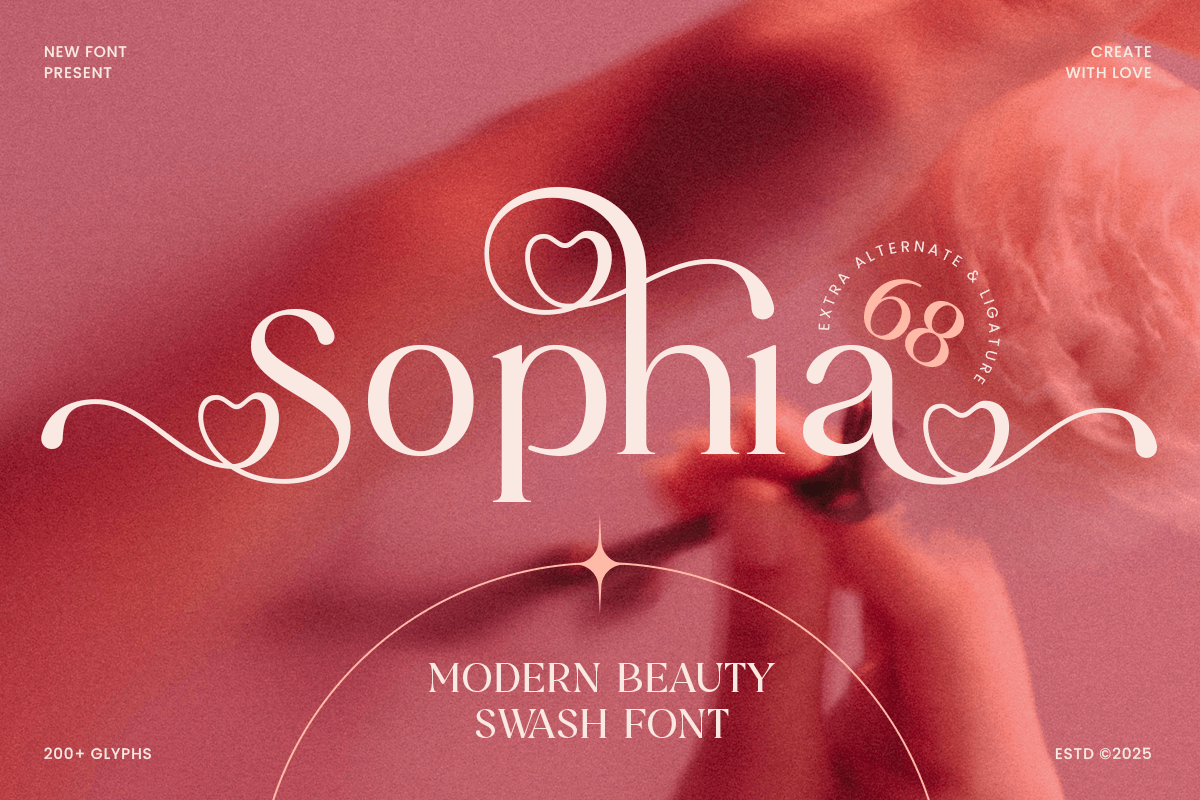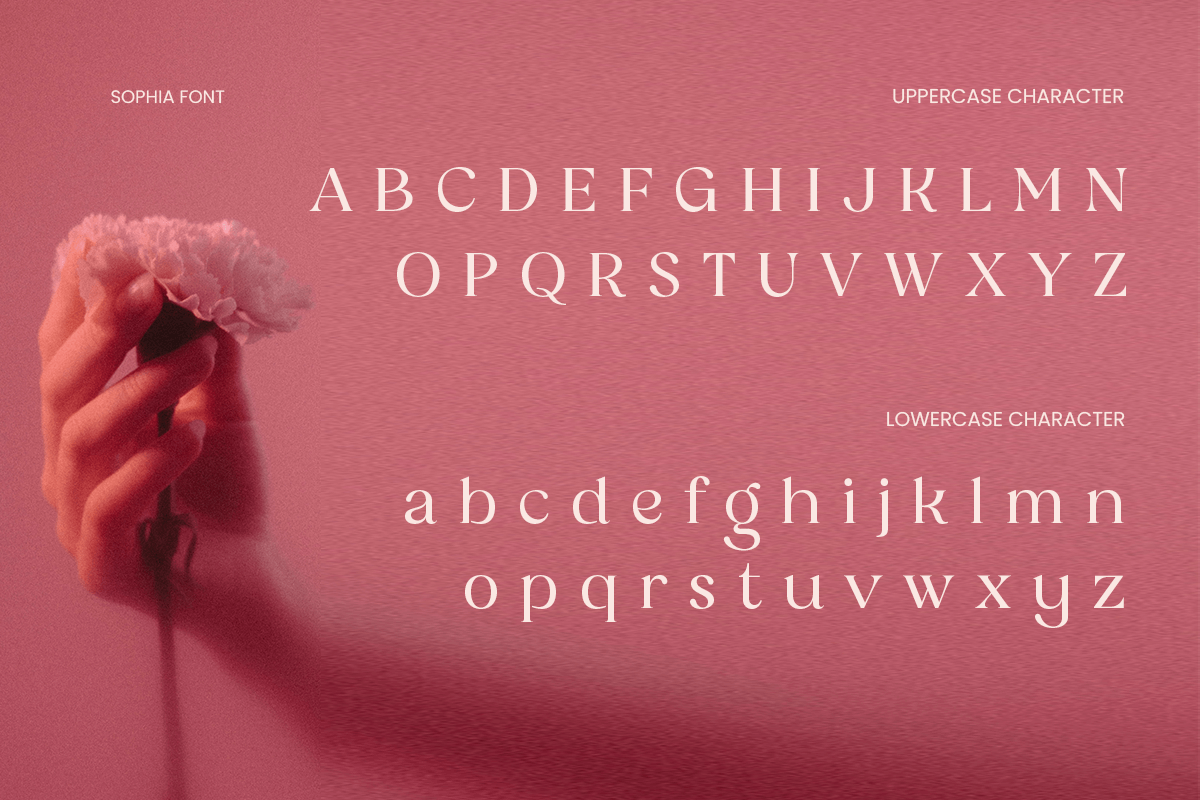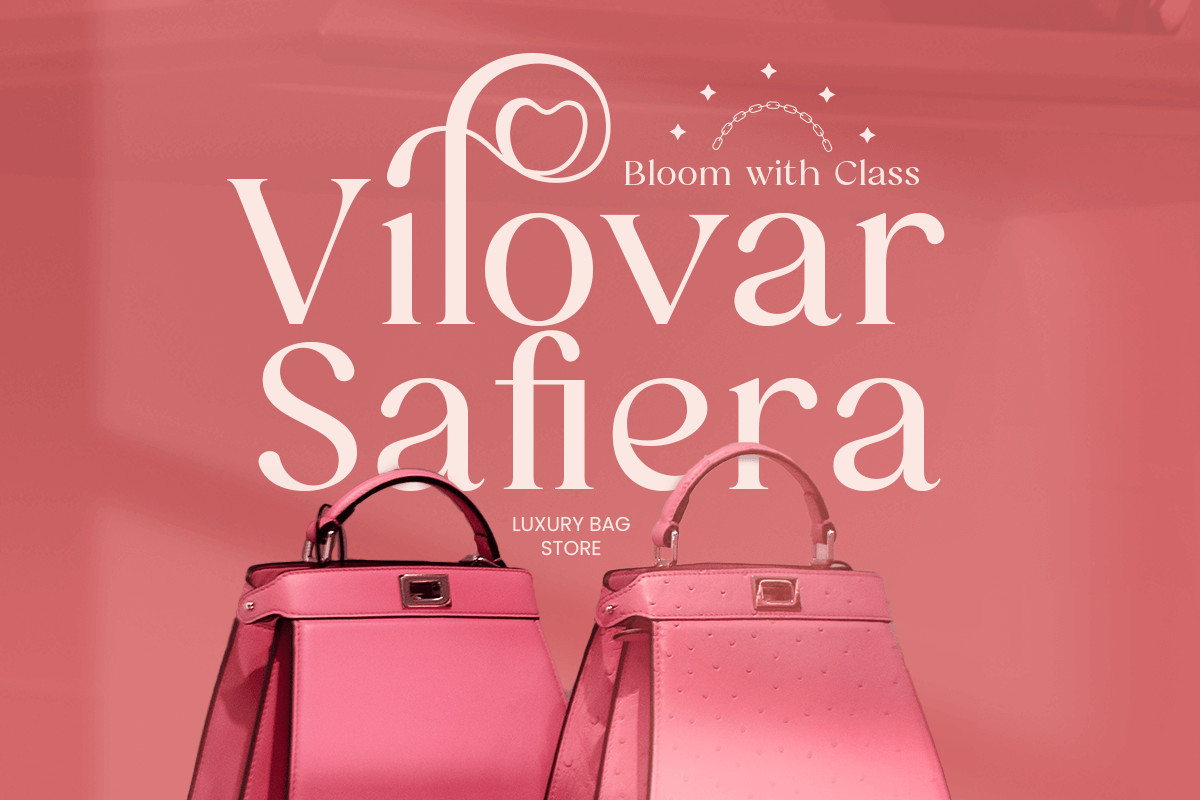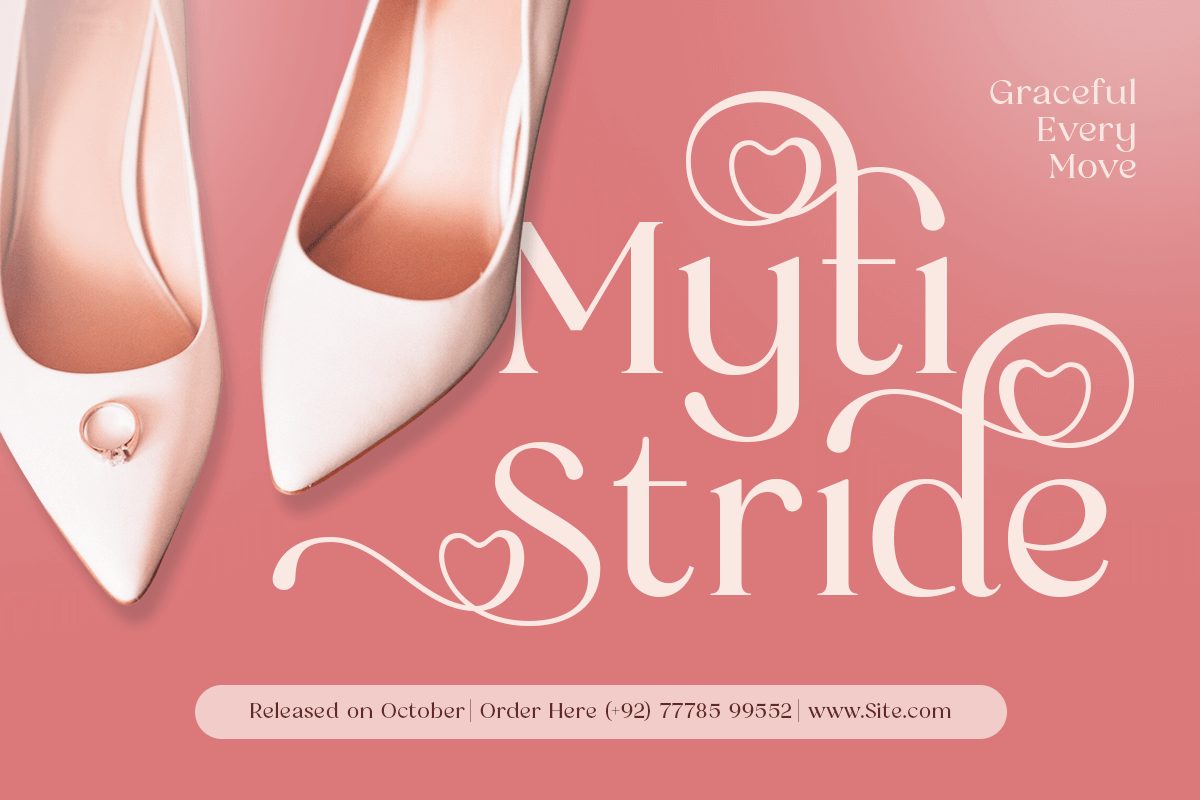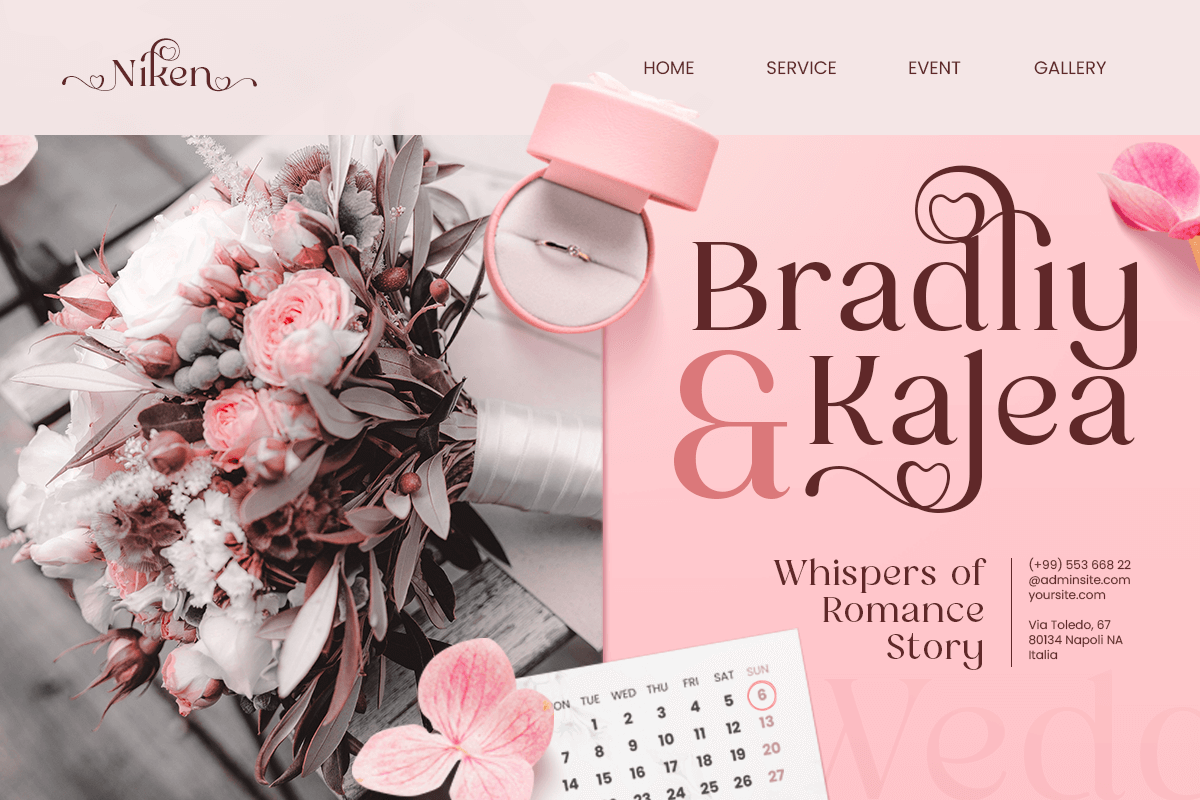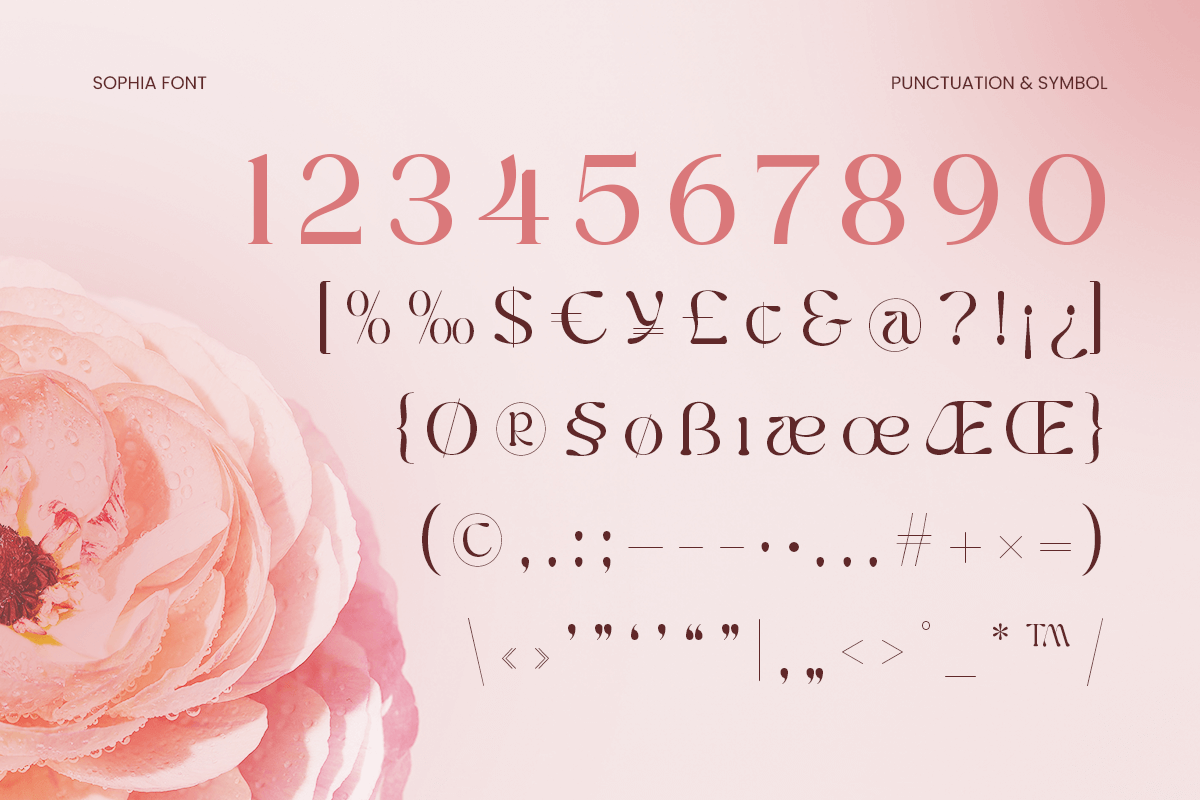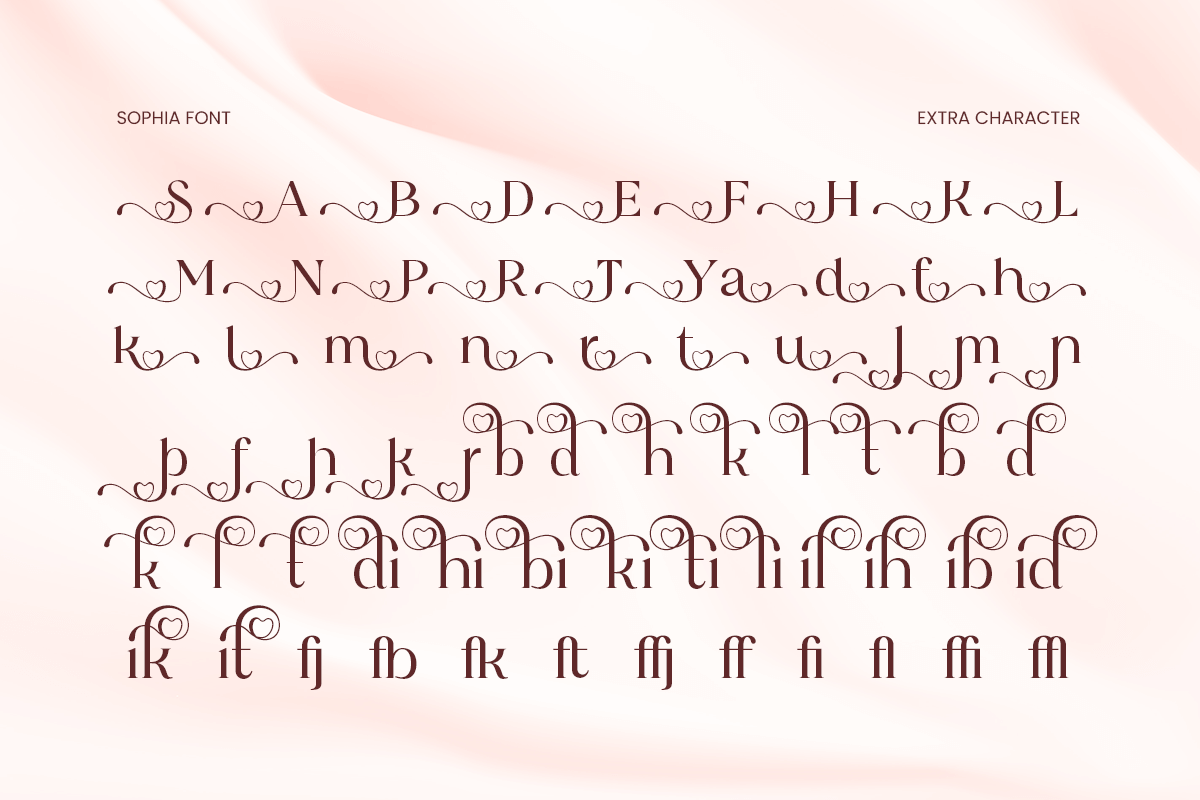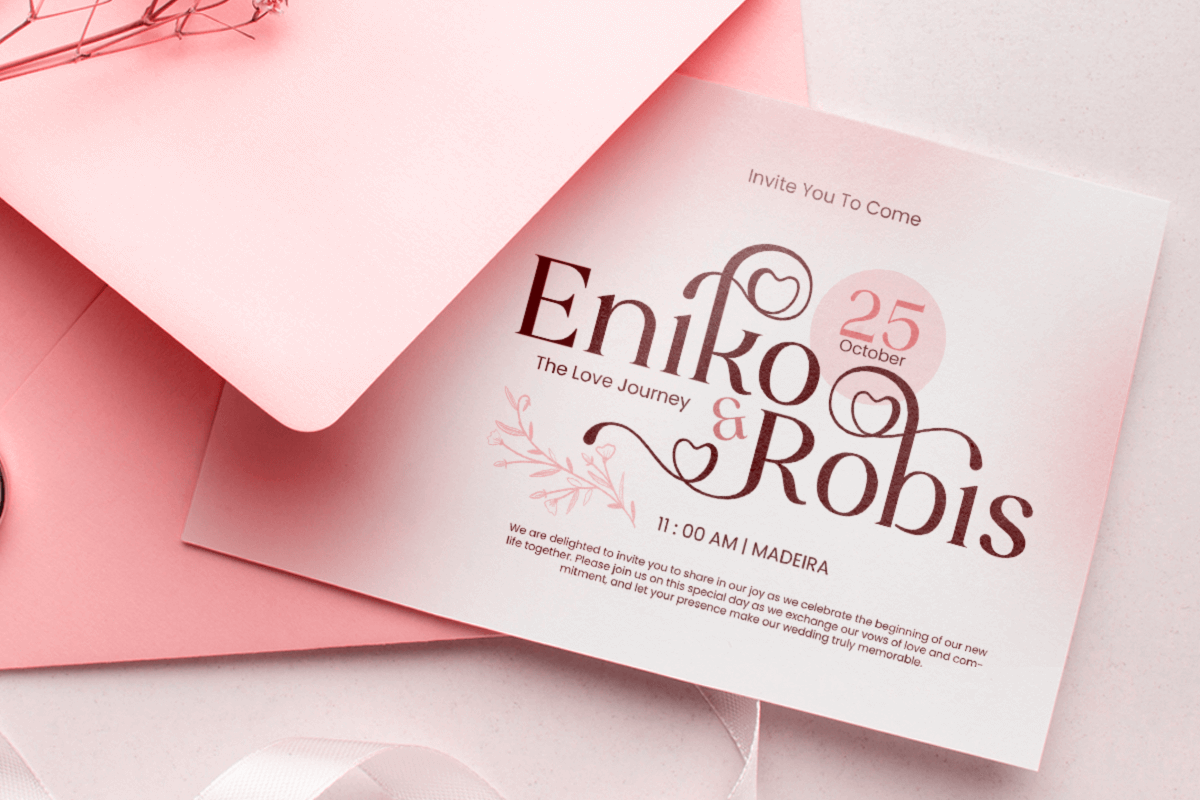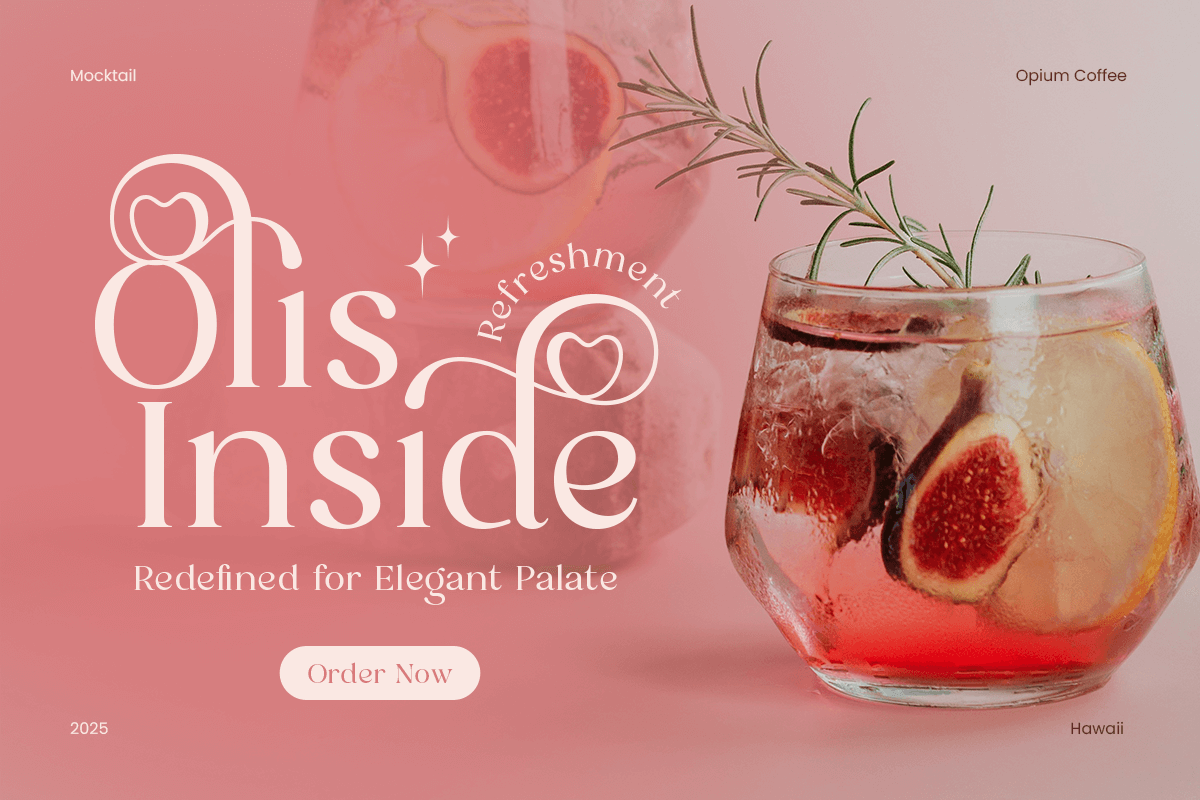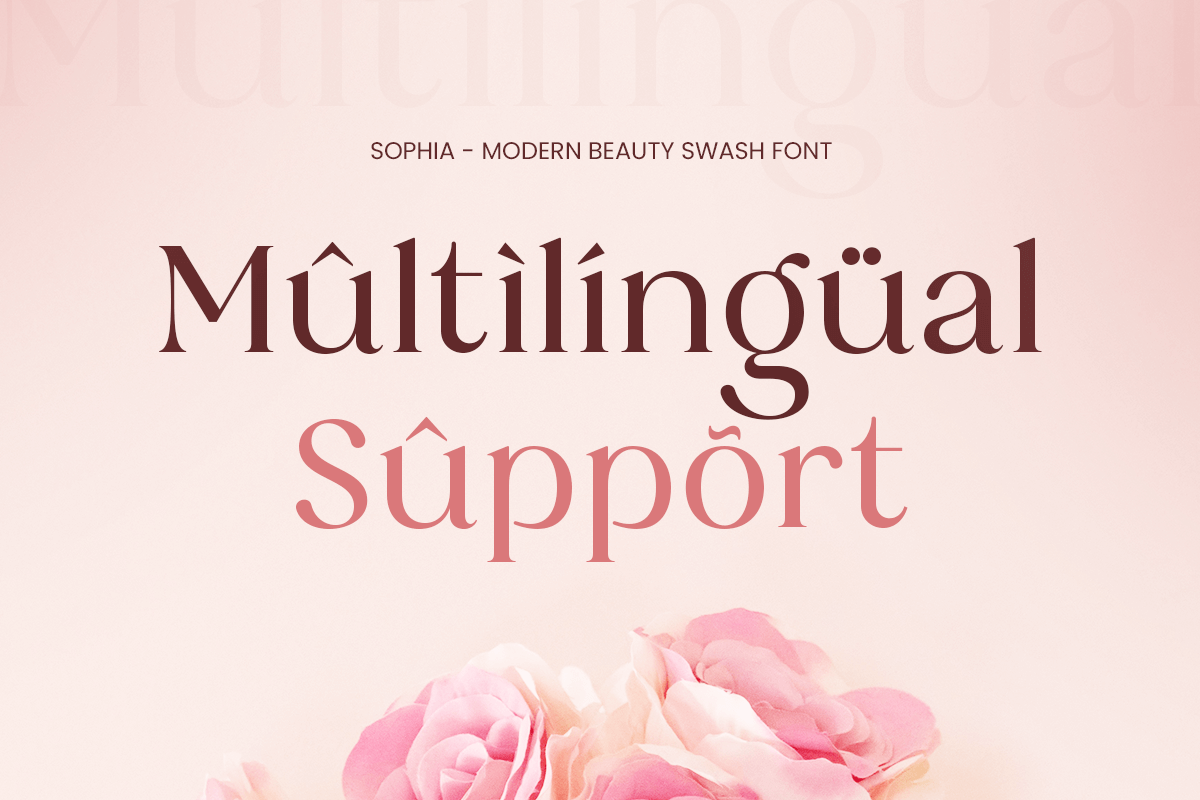
Sophia - Beauty Lovely Swash Font
Sophia is a beauty lovely swash font designed to bring softness, charm, and feminine elegance to your design projects. With flowing curves, expressive swashes, and a delicate handwritten feel, this typeface is perfect for beauty branding, wedding invitations, product packaging, and romantic editorial layouts.
Each letter in Sophia is crafted with graceful movement and playful charm, offering an irresistibly sweet and stylish handwritten touch. The swash elements create beautiful wordmarks, making this font ideal for logos, quotes, greeting cards, social media posts, and lifestyle branding that needs a warm, personal feel.
Whether you're designing for fashion, beauty, stationery, or creative digital content, Sophia adds a polished, feminine, and enchanting aesthetic to every composition.
Sophia – Beauty Lovely Swash Font Features
Elegant handwritten script with lovely swashes
Perfect for feminine branding, invitations, packaging, and social media
Smooth curves and romantic flow for charming, expressive typography
Ideal for beauty, lifestyle, wedding, and boutique design
Uppercase, lowercase, numerals, and punctuation included
OpenType swashes for advanced decorative styling
Multilingual support for Afrikaans, Albanian, Asu, Basque, Bemba, Bena, Breton, Chiga, Cornish, Dutch, English, Estonian, Filipino, Finnish, Friulian, Galician, German, Gusii, Indonesian, Irish, Italian, Kabuverdianu, Kalenjin, Kinyarwanda, Luo, Luxembourgish, Luyia, Machame, Makhuwa-Meetto, Makonde, Malagasy, Manx, Morisyen, North Ndebele, Nyankole, Oromo, Portuguese, Quechua, Romansh, Rombo, Rundi, Rwa, Samburu, Sango, Sangu, Scottish Gaelic, Sena, Shambala, Shona, Soga, Somali, Spanish, Swahili, Swedish, Swiss, and more.
Add sweetness and elegance to your projects with Sophia – the perfect beauty swash font for feminine, romantic, and modern design. ✨💗